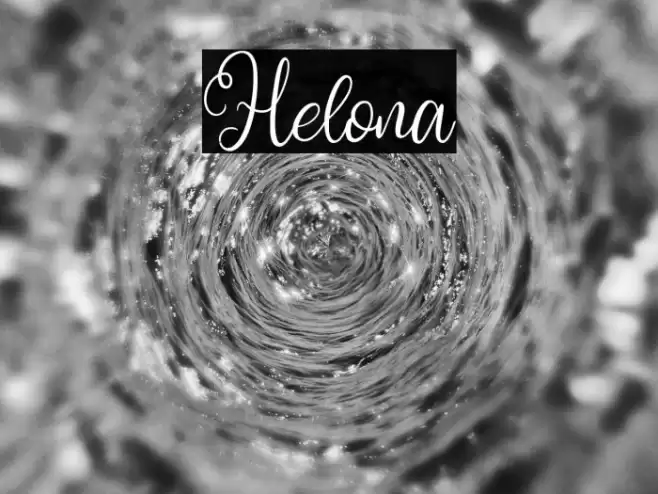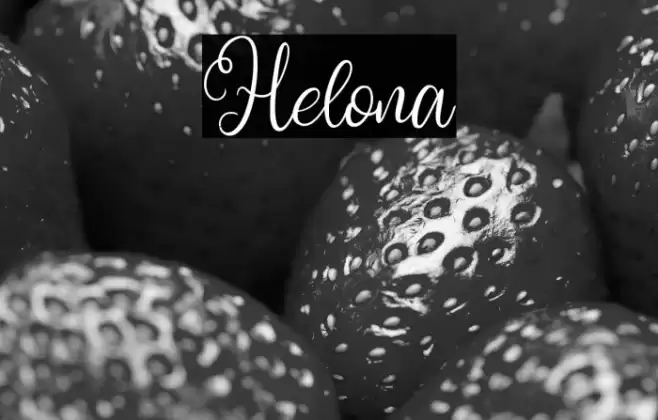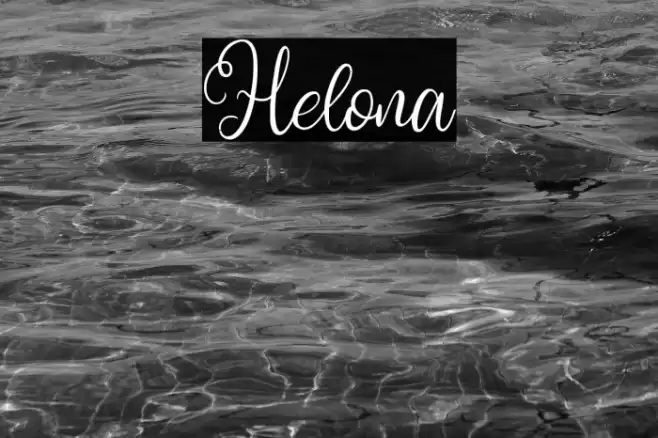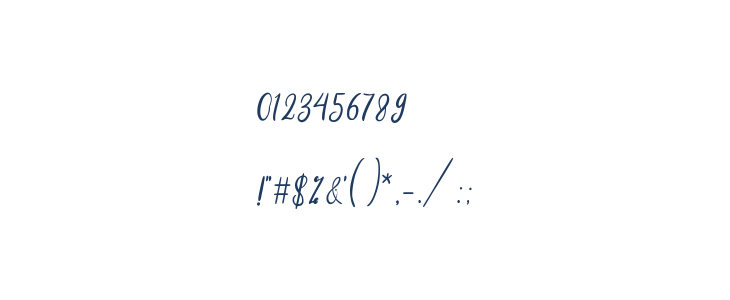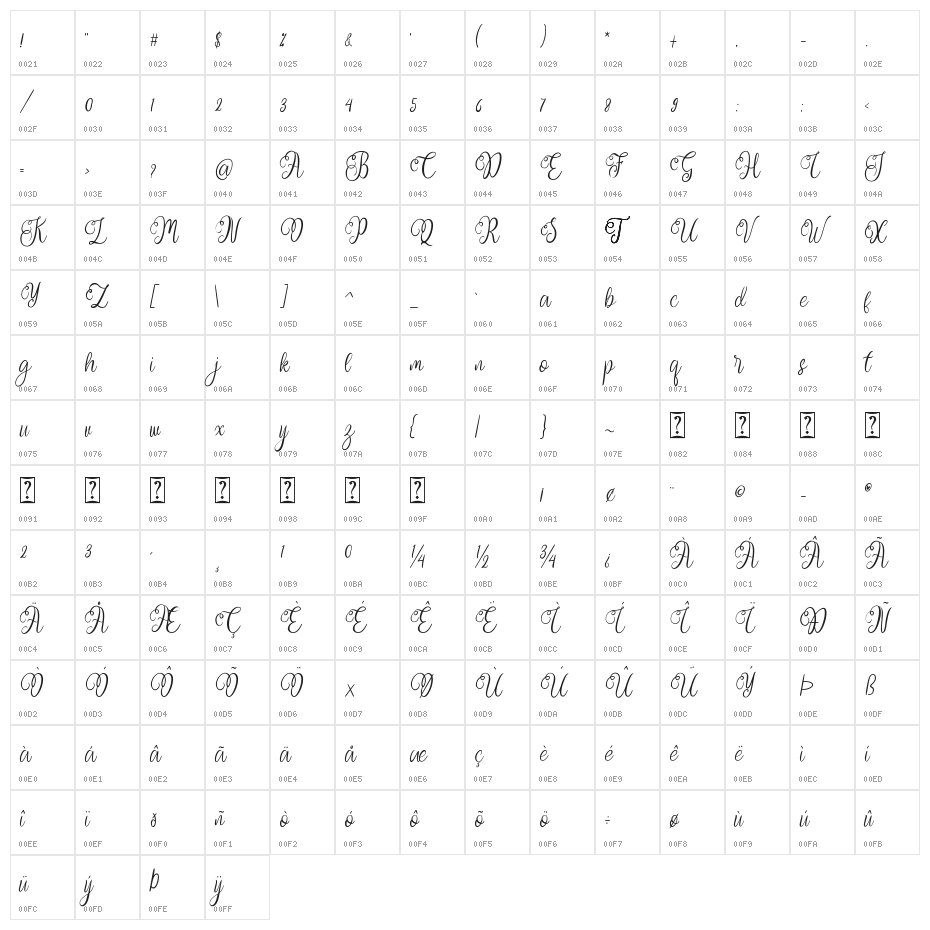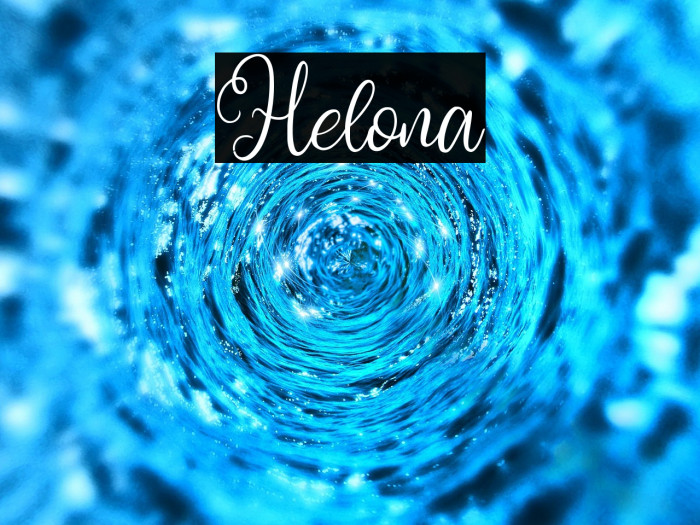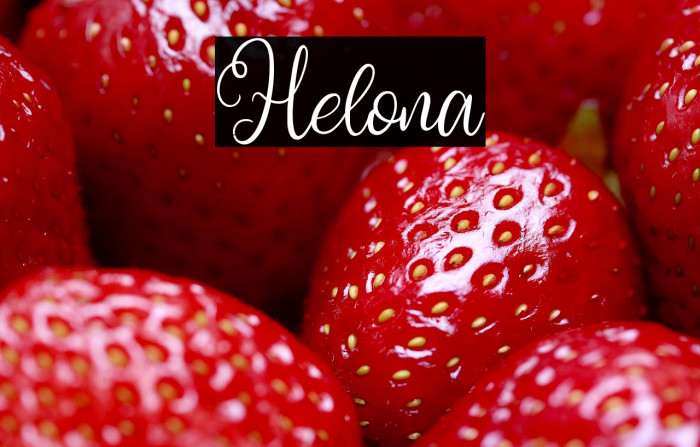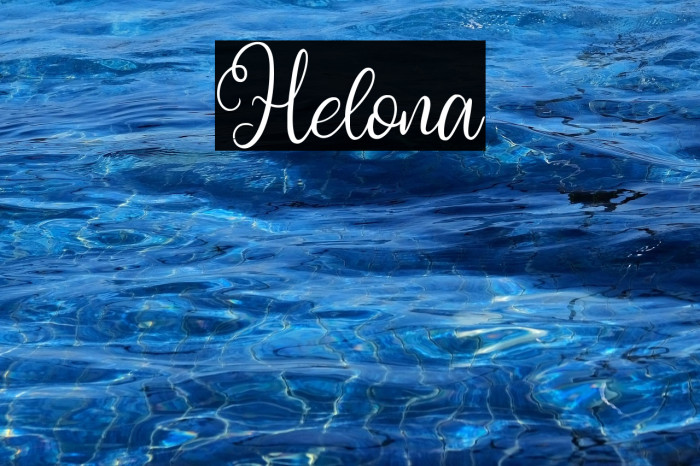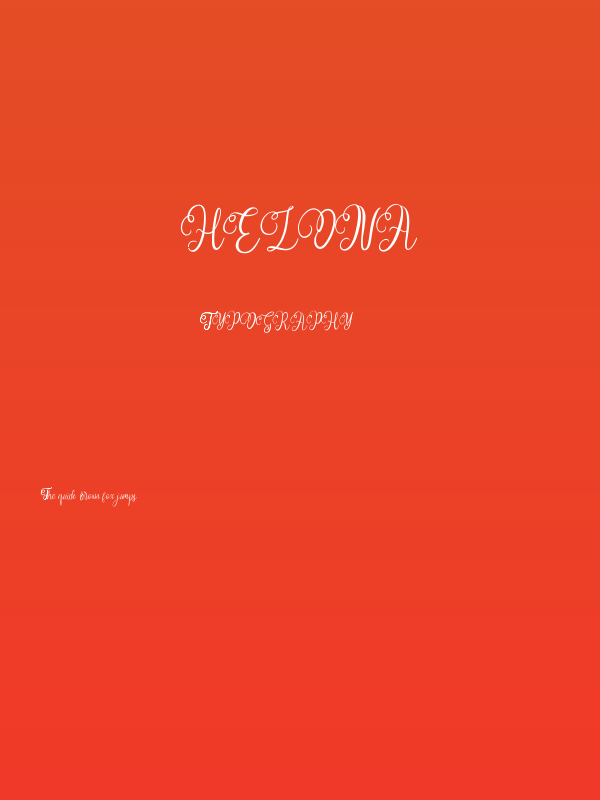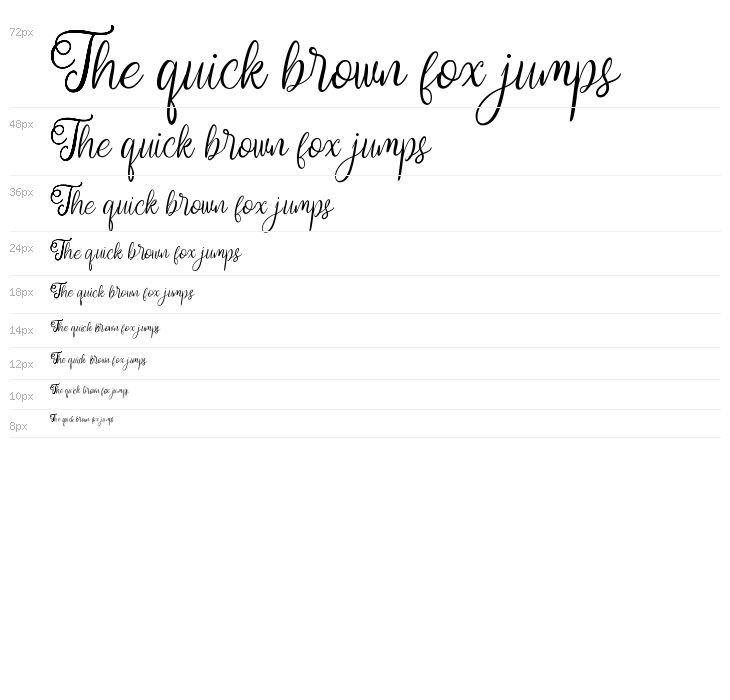
Helona Font
Helona Description
This elegant script font features a flowing, cursive style with intricate loops and swashes, giving it a sophisticated and artistic appearance. The uppercase letters are adorned with decorative flourishes, while the lowercase letters maintain a smooth and connected form, enhancing readability. The numerals and special characters are designed to complement the overall aesthetic, making this font suitable for a variety of creative applications. Its graceful curves and stylish details make it ideal for projects that require a touch of elegance and charm.
A graceful script font with decorative flourishes and smooth, connected letters from Regular fonts.
- Proposed Projects: Ideal for wedding invitations, greeting cards, branding, and elegant packaging.
- Overall Style: Elegant
- Use Case: Logos, Invitations, Decorative text